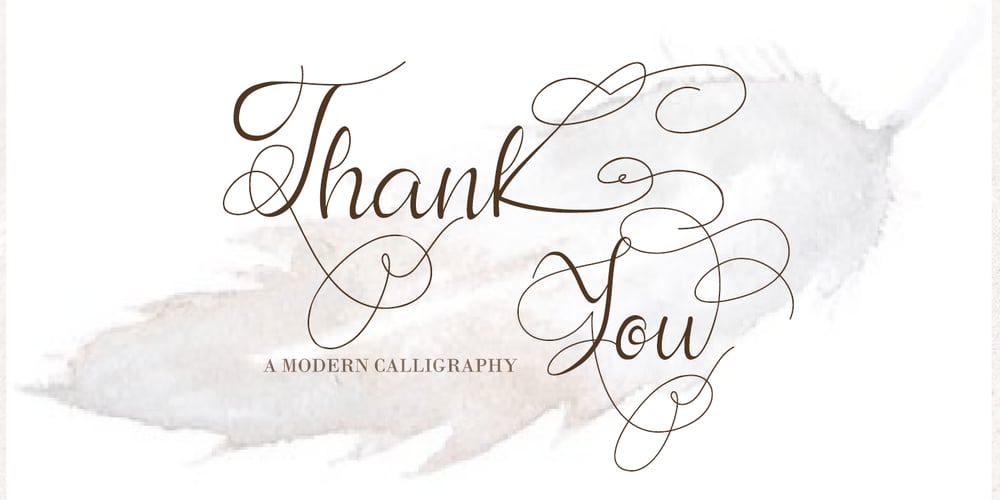
Andora Font Family was designed by Thomas Aradea and published by Letterara. Andora contains 1 styles and family package options. Introducing Andora, a beautiful, full-featured modern calligraphic font with tons of alternate characters and OpenType features. Andora hand-lettered is particularly well-suited for invitations, branding and editorial design. Perhaps the most fun thing about Andora is that it includes multiple versions of all ascending and descending letters, making it lots of fun to play with layouts and compositions. The OpenType features can be very easily accessed by using OpenType-savvy programs such as Adobe Illustrator and Adobe InDesign.